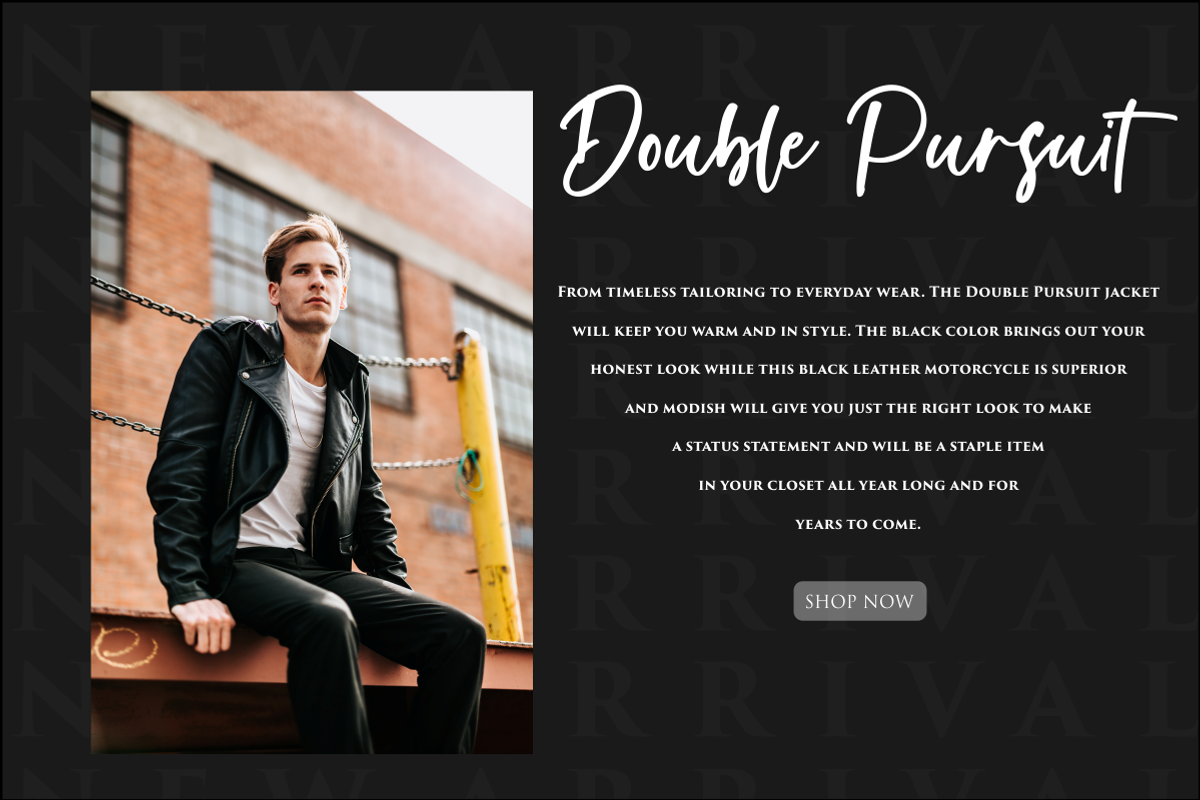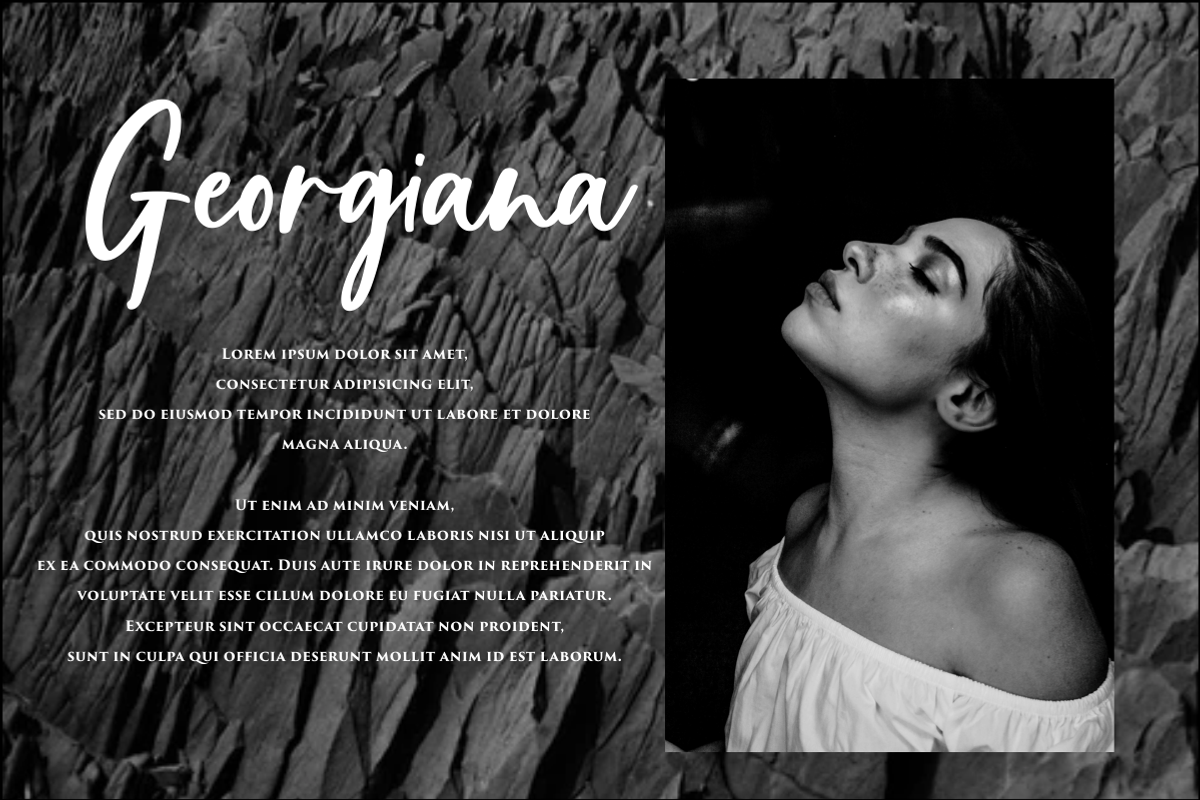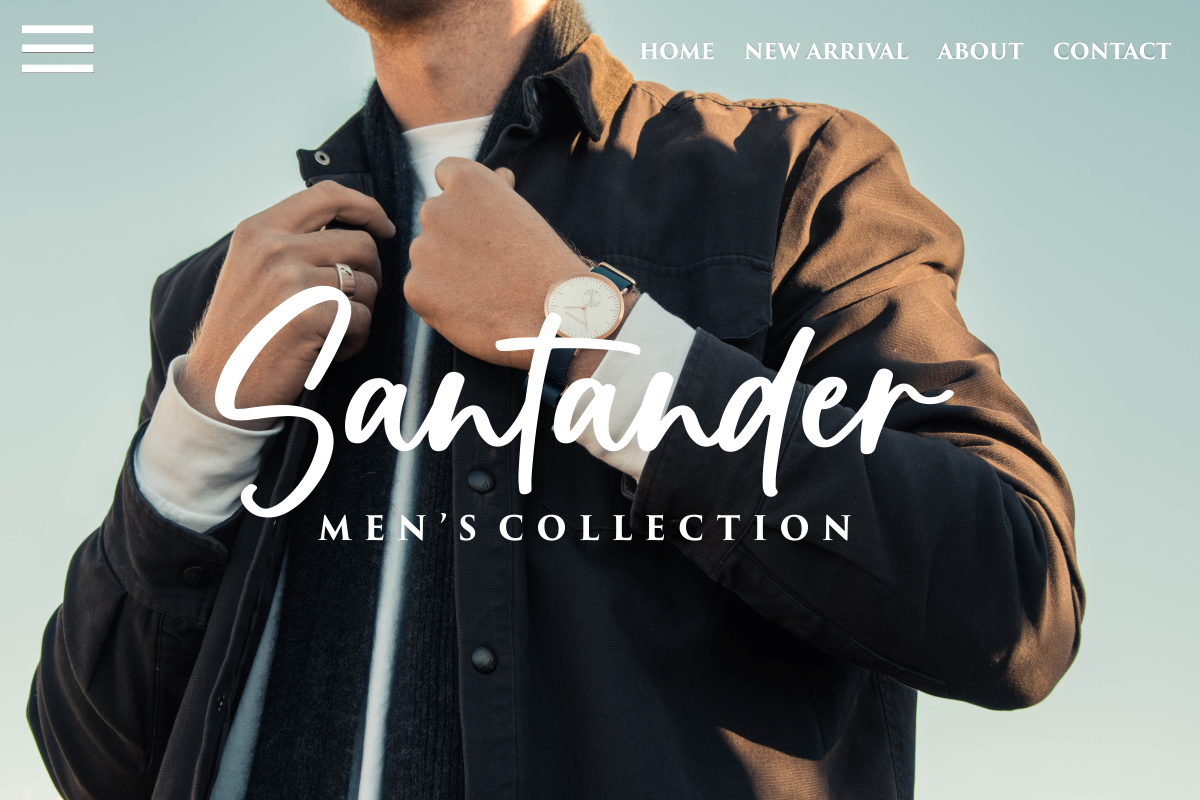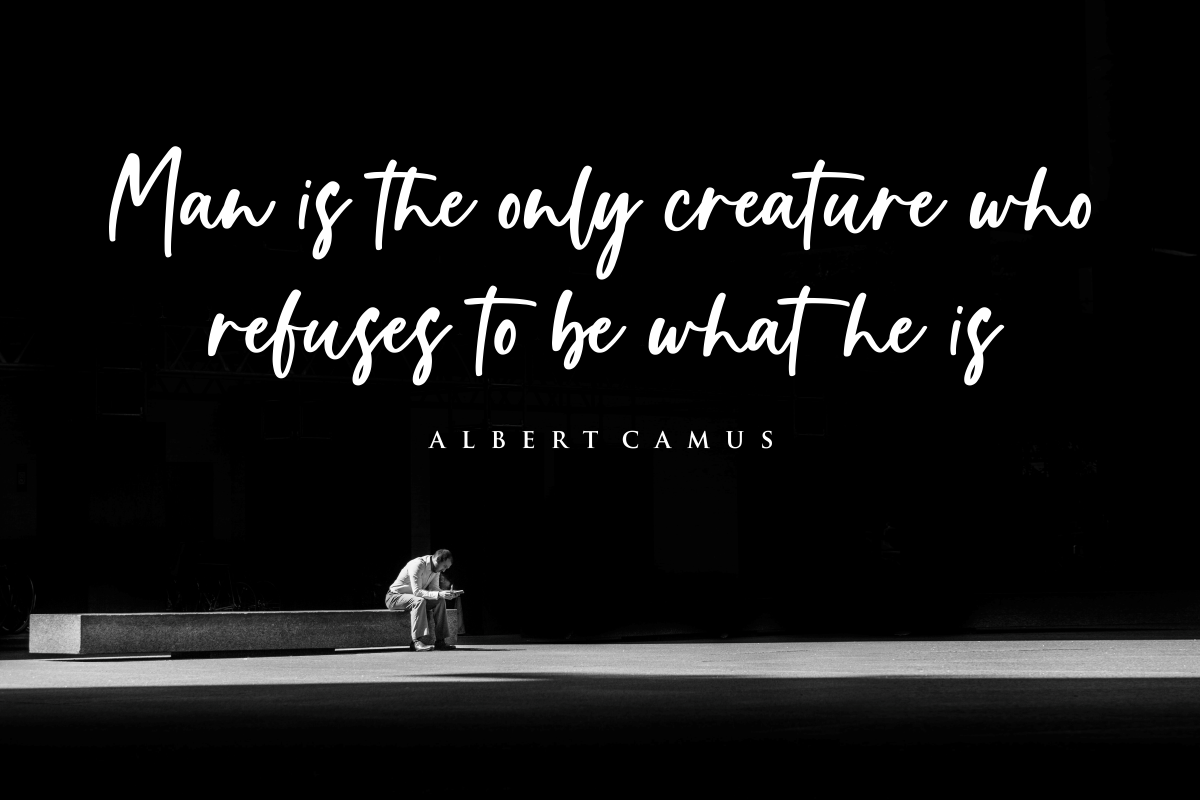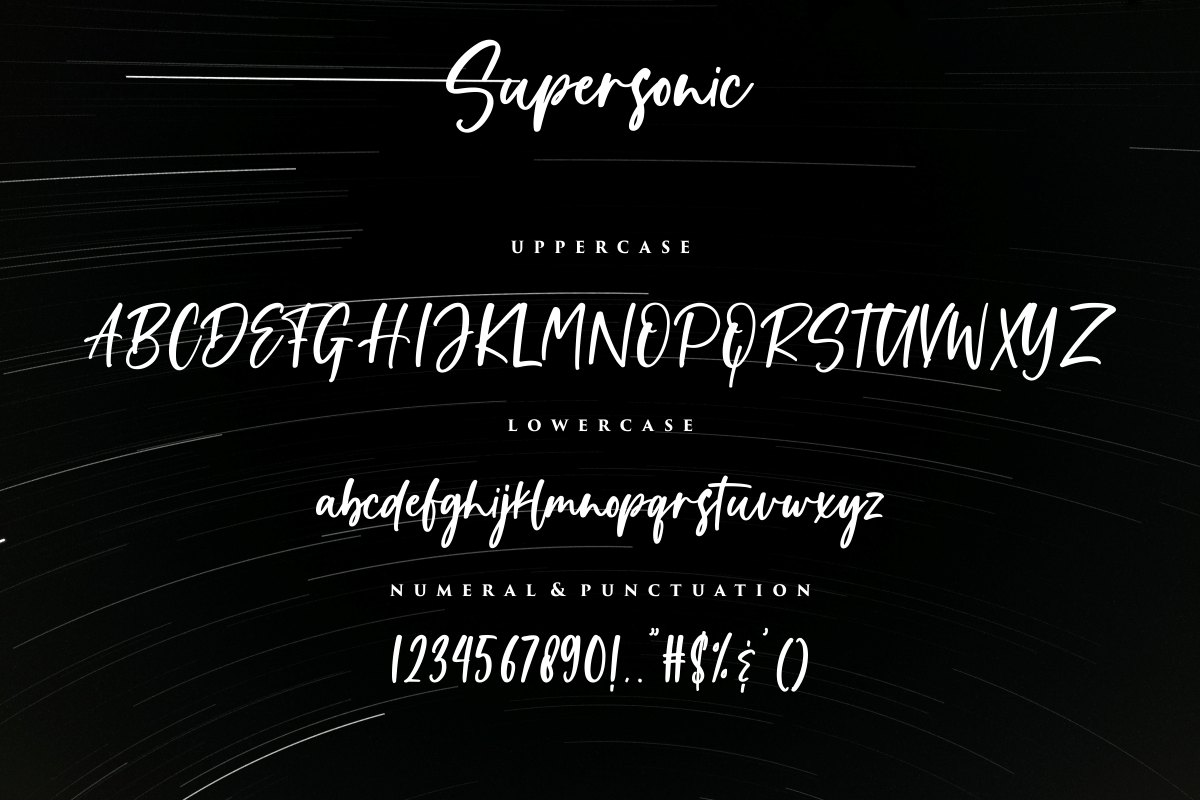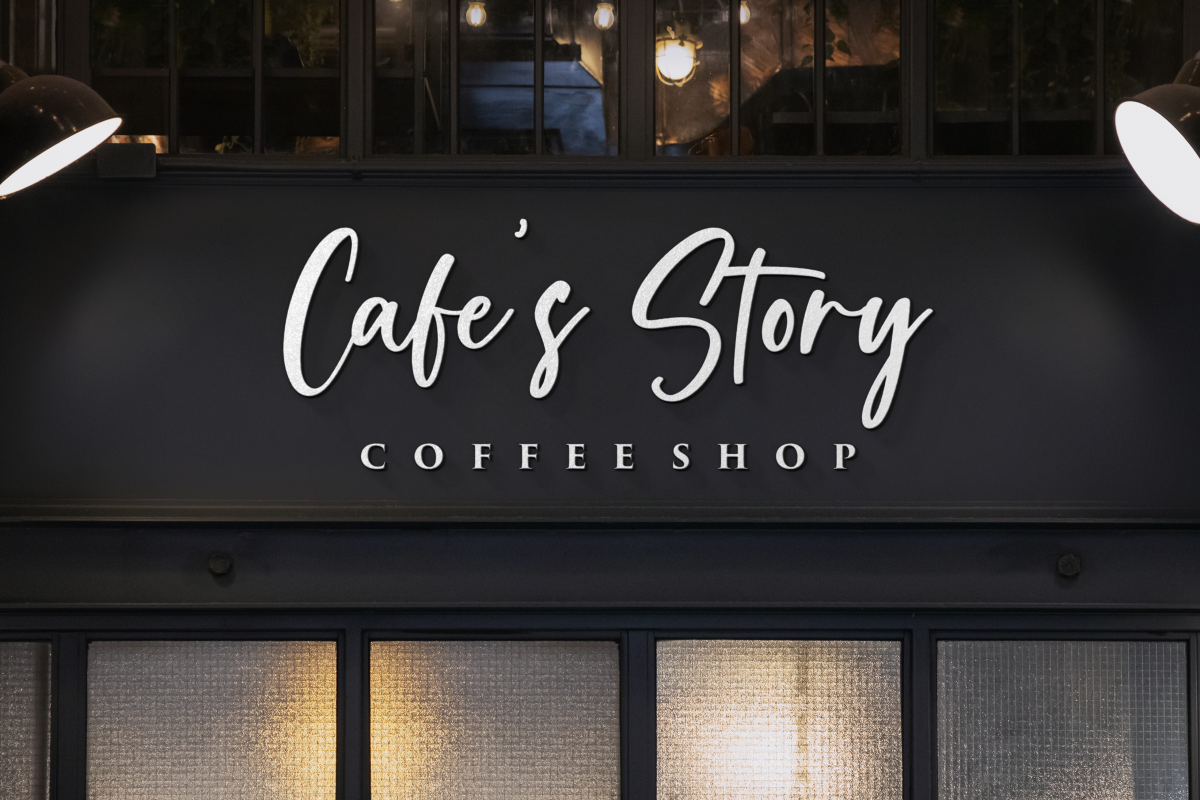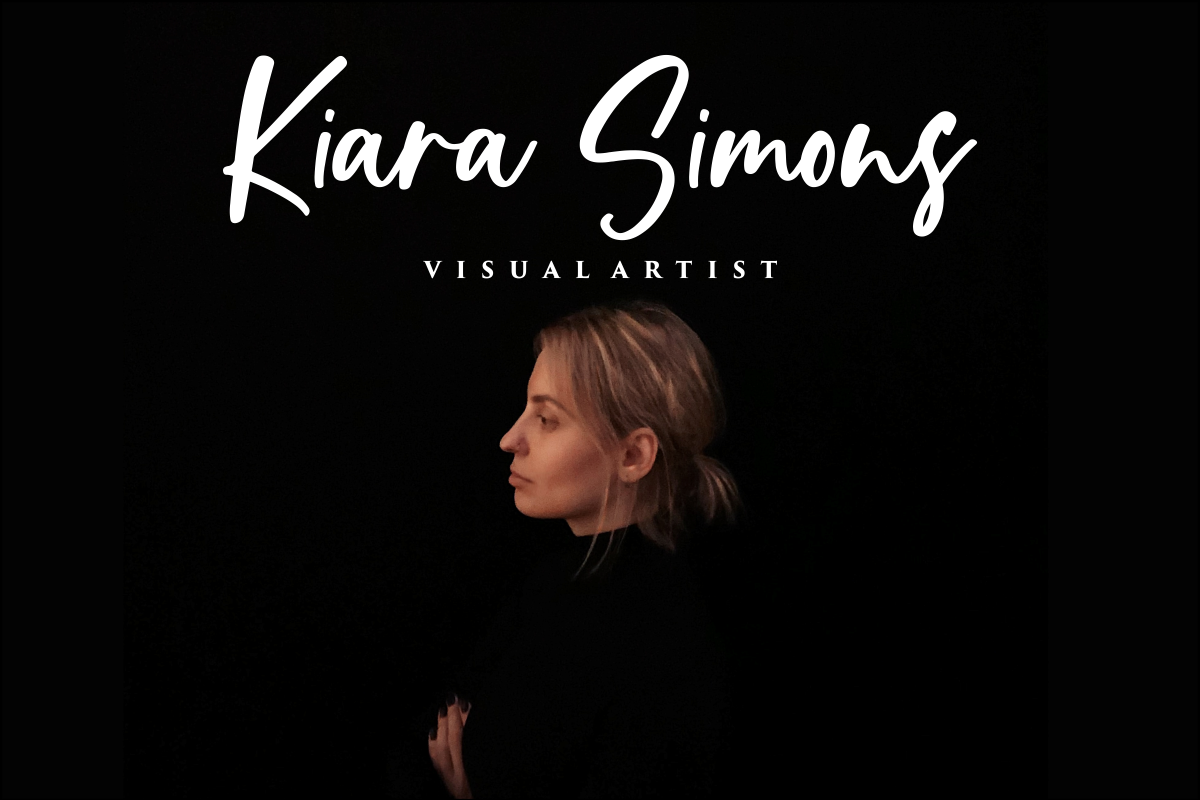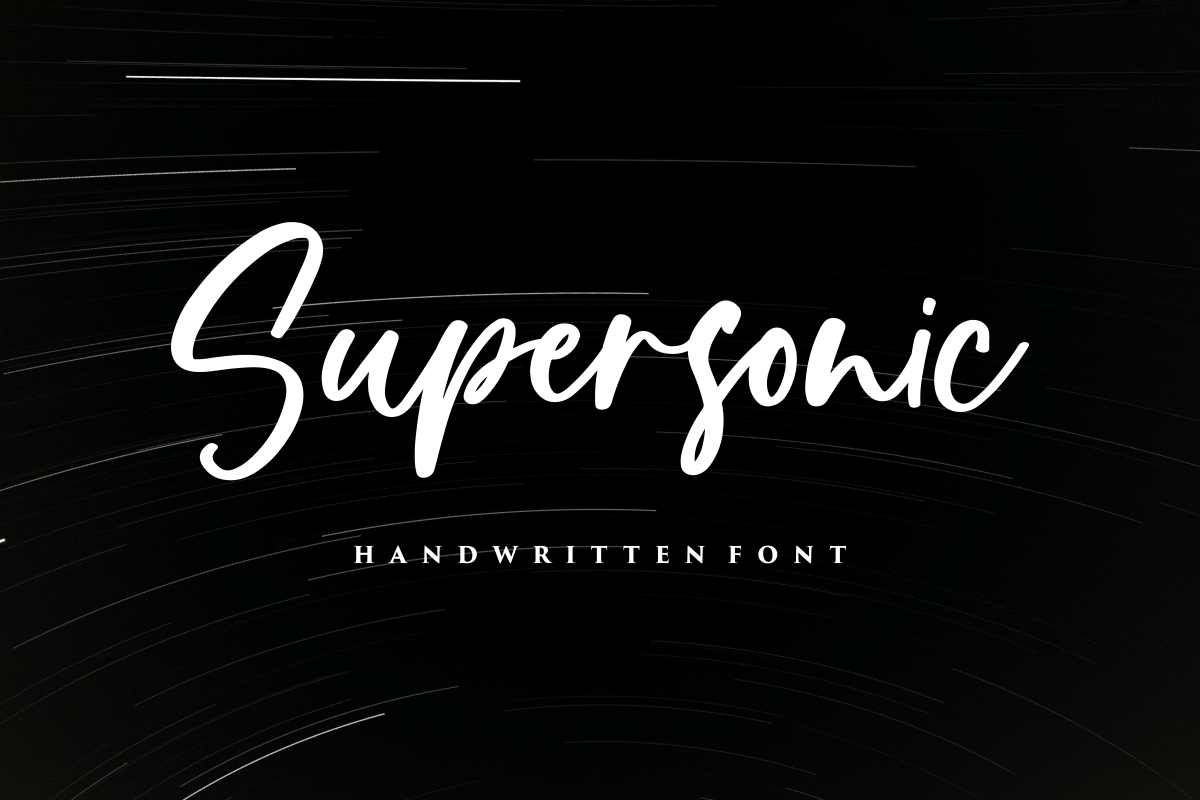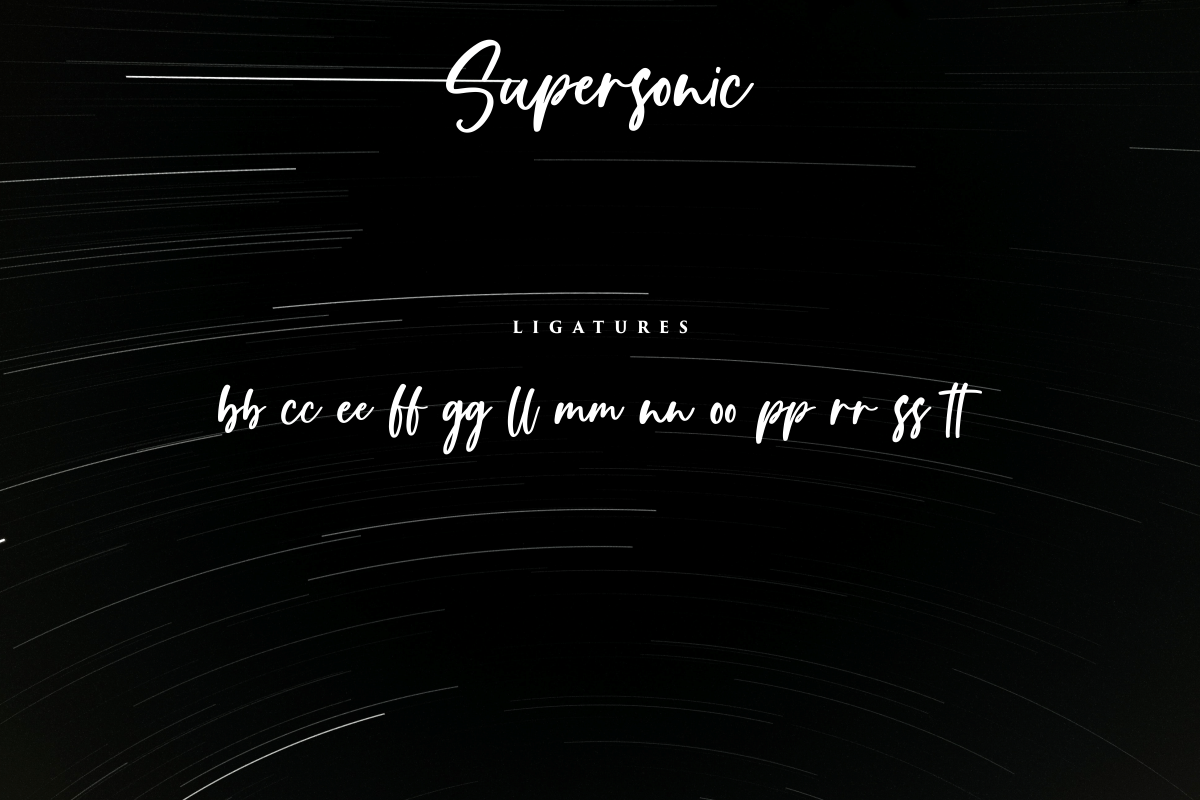
Supersonic - Handwritten Font
Supersonic is a new stylish handwritten font, this font Is perfect for logos, invitations, stationery, wedding designs, social media posts, advertisements, product packaging, product designs, label, photography, watermark, special events, or anything.
Supersonic comes with a full set of uppercase and lowercase letters, multilingual symbols, uppercase, numerals, punctuation.